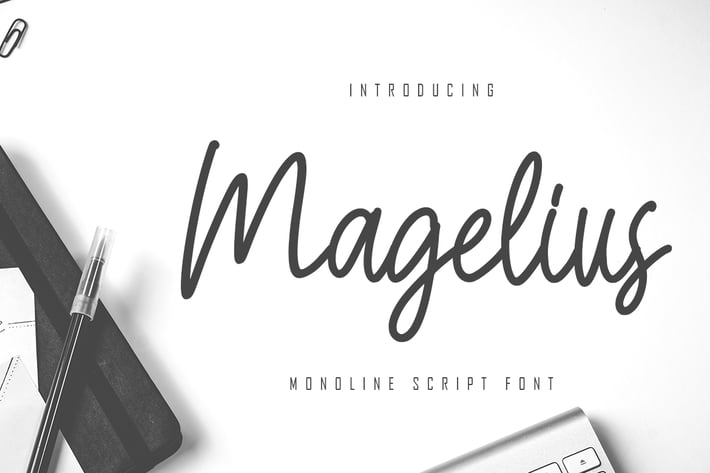
Magelius - Monoline Script Font
Magelius is a monoline type font combined with a script so it looks elegant, suitable to support a variety of designs and your business